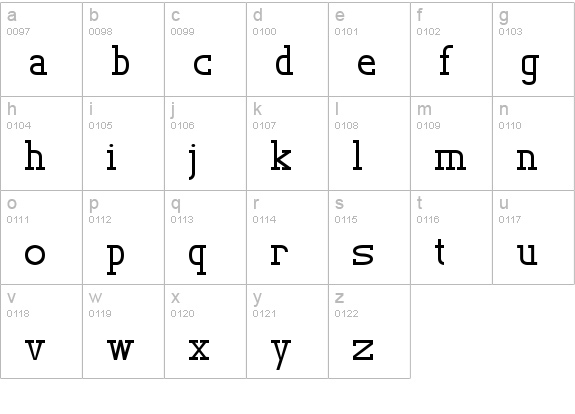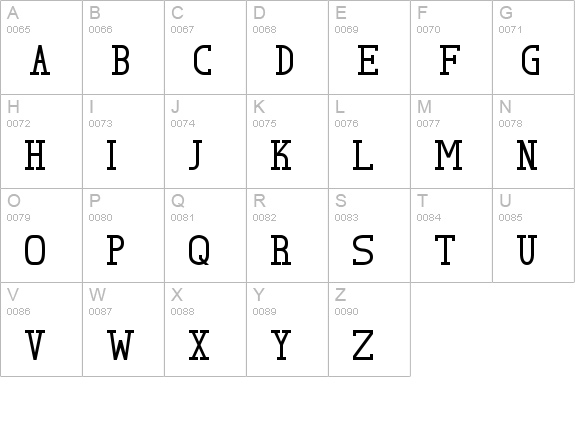
TL Serif Font Details
Introducing TL Serif, a timeless and elegant font that exudes sophistication and class. With its delicate serifs and refined curves, TL Serif adds a touch of refinement to any design project. Whether you're creating a logo, designing a website, or crafting a print layout, this font is sure to captivate your audience and leave a lasting impression. TL Serif's versatility allows it to seamlessly adapt to various design styles and contexts. Whether you're aiming for a modern and sleek look or a more traditional and classic aesthetic, TL Serif effortlessly embodies both, making it the perfect choice for any creative endeavor. But that's not all – TL Serif is not only visually stunning, but it also offers a practical advantage. This font is freely available to download at FontsMarket.com, providing designers and creatives with easy access to this exceptional typeface. Say goodbye to expensive font licenses and hello to the freedom of creativity with TL Serif. As you explore the vast possibilities of TL Serif, you'll discover its impeccable legibility and readability. The carefully crafted letterforms ensure optimal clarity, making it a reliable choice for body text or lengthy paragraphs. TL Serif's extensive character set, including multiple weights and styles, allows for seamless integration and customization, ensuring that every project is tailored to perfection. Whether you're a seasoned designer or just starting, TL Serif will quickly become an invaluable asset in your font library. Its timeless appeal, coupled with its accessibility and versatility, make it an ideal choice for a wide range of projects. So why wait? Experience the timeless elegance of TL Serif today – download it for free at FontsMarket.com and elevate your designs to new heights.